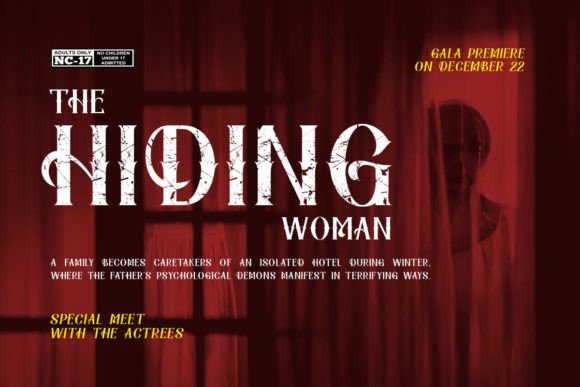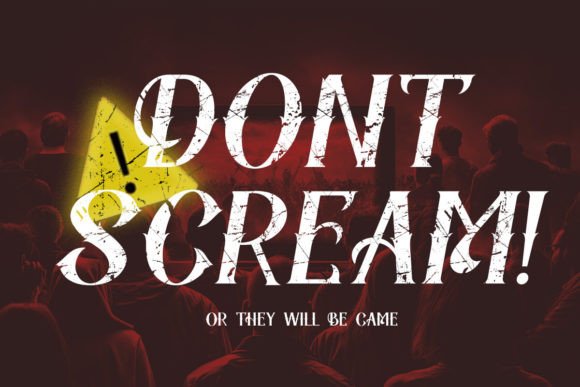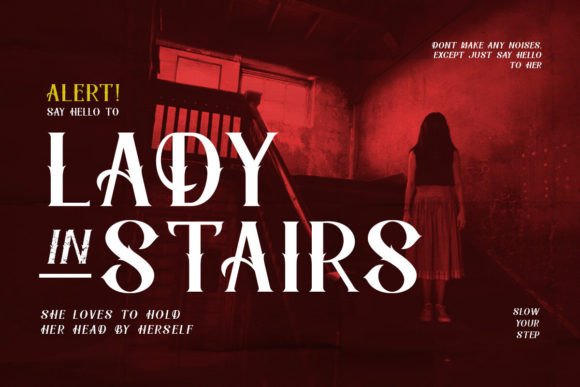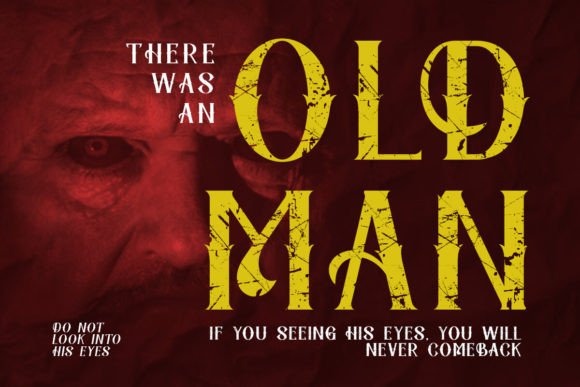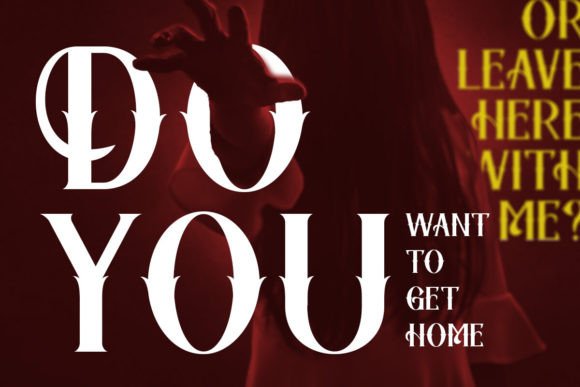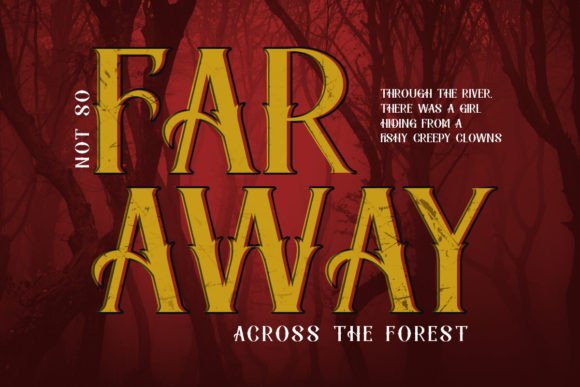
Introducing Ghost Theater – A Gothic and Sharp Horror Font
Step into the dark and mysterious world of Ghost Theater, the perfect font for all your gothic and horror-themed designs. Inspired by the eerie atmosphere of haunted mansions and the spine-chilling ambiance of Halloween nights, Ghost Theater brings a sharp, sinister edge to every letter.
A Font that Embodies the Spirit of Horror
Ghost Theater is a gothic and sharp horror font that is sure to send shivers down the spines of your audience. Its unique design is inspired by the creepy and abandoned theaters of the past, where the lines between reality and the supernatural blur. With its distressed and worn-out texture, Ghost Theater adds a sense of eeriness and foreboding to any design project.
Key Features of Ghost Theater Font
- Sharp and Sinister Edge: Every letter in Ghost Theater has a sharp, sinister edge that adds to the overall sense of horror and unease.
- Gothic Inspiration: The font is inspired by traditional gothic typography, with intricate details and ornate flourishes.
- Distressed Texture: The font features a distressed and worn-out texture, giving it a creepy and abandoned feel.
- Highly Versatile: Ghost Theater can be used for a wide range of design projects, from horror-themed posters and flyers to t-shirts and merchandise.
Ghost Theater is the perfect font for designers and crafters who want to add a touch of horror and mystery to their projects. Whether you’re creating a spooky poster for a Halloween party or designing a t-shirt for a horror movie fan, Ghost Theater is the perfect choice.
Tips for Using Ghost Theater Font
- Pair it with Dark Colors: Ghost Theater looks best when paired with dark colors, such as black, dark gray, or purple.
- Use it for Headlines: The font is perfect for headlines and titles, where its sharp and sinister edge can really make an impact.
- Experiment with Textures: Try experimenting with different textures, such as blood splatters or cobwebs, to add an extra layer of horror to your design.